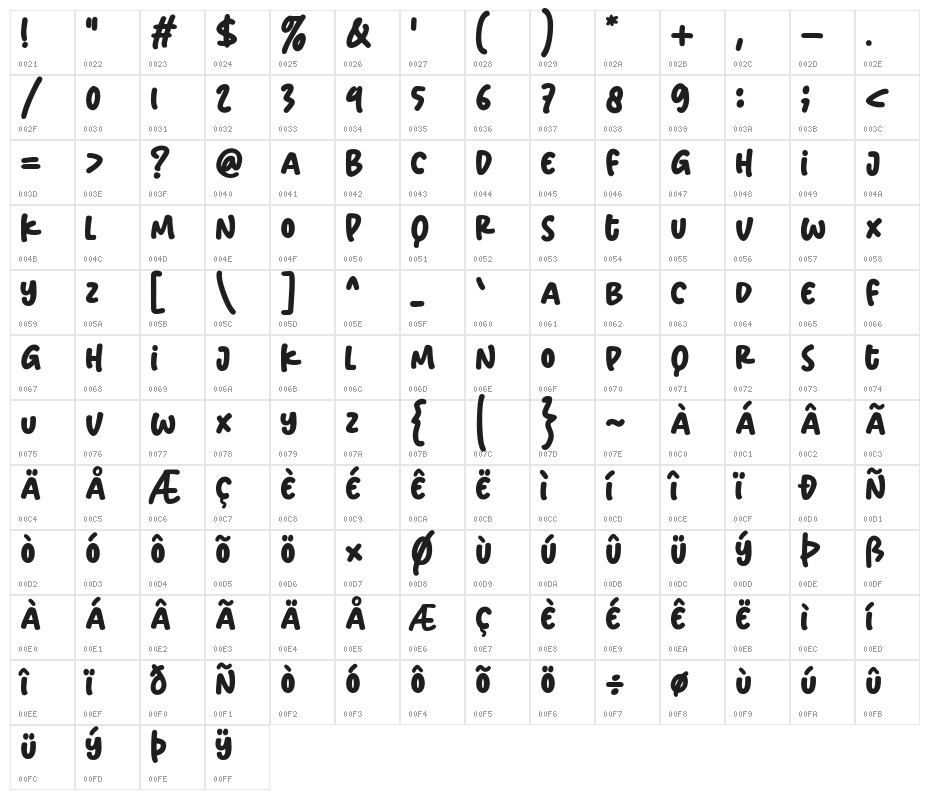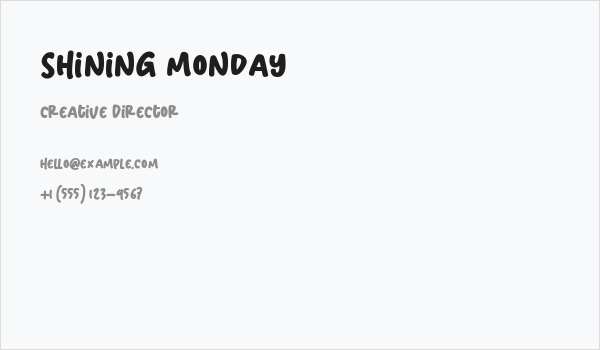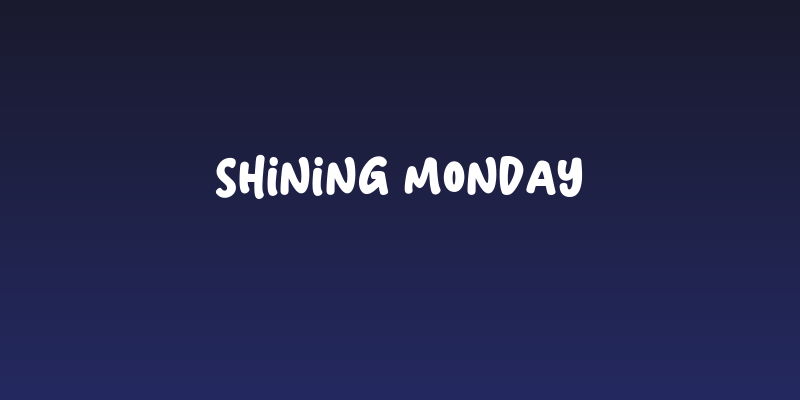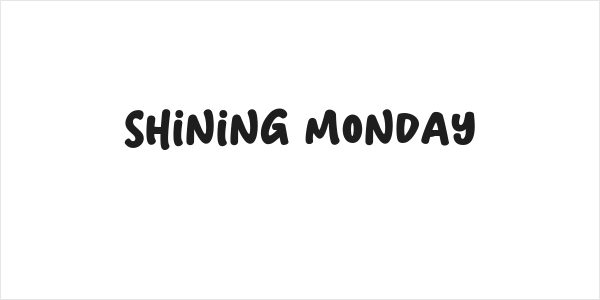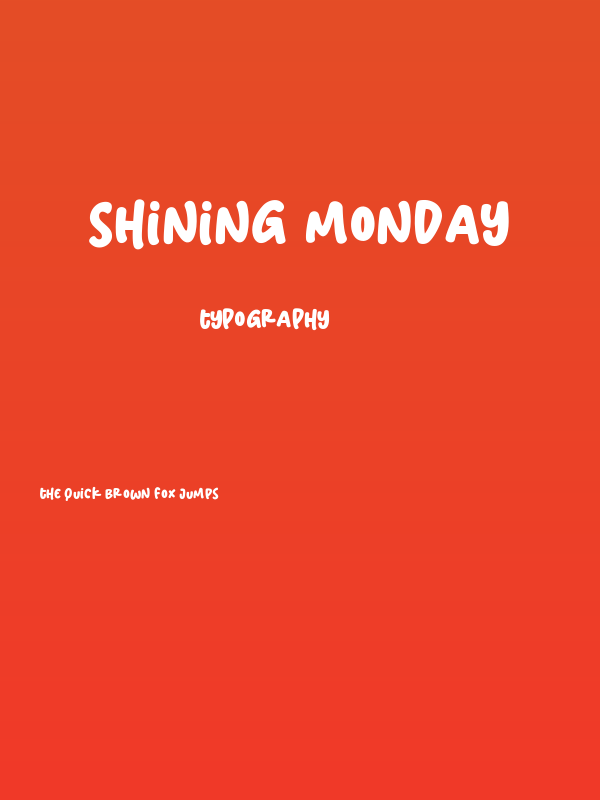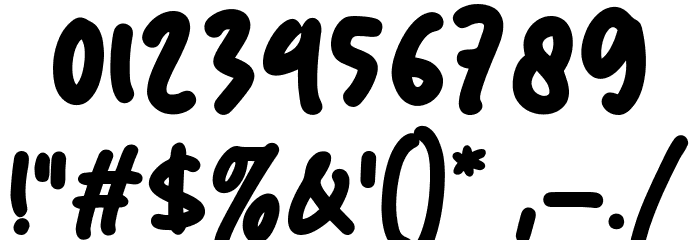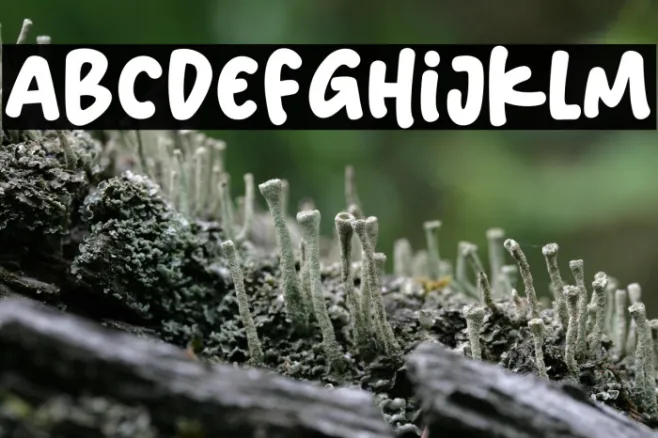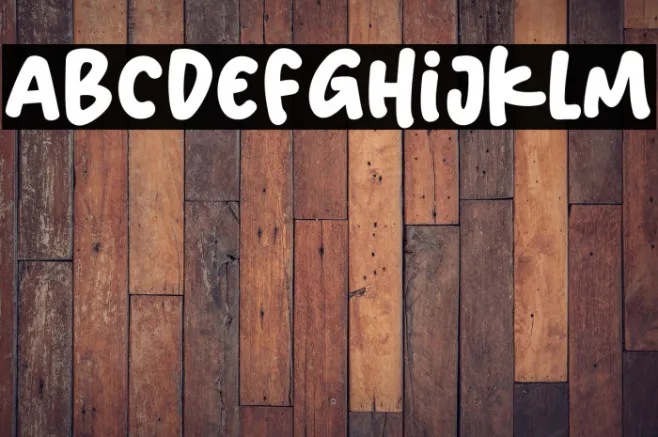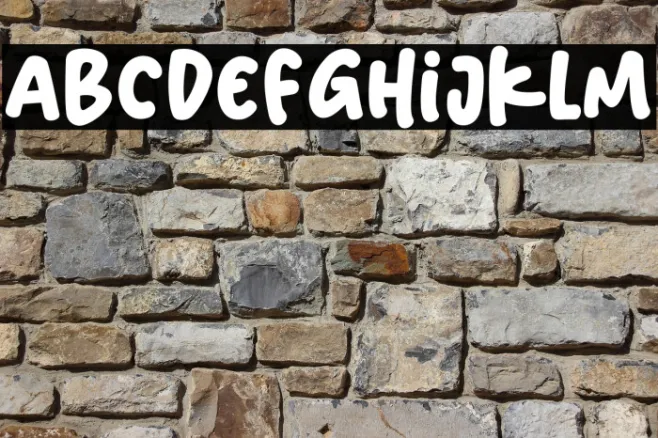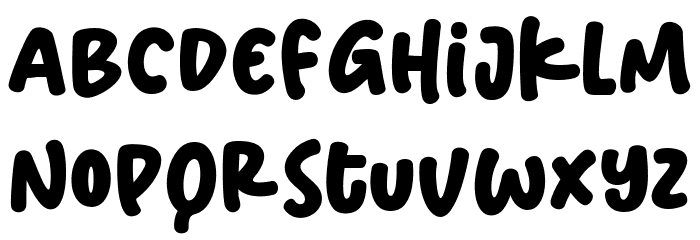
Shining Monday Font
Shining Monday Description
This playful and bold font exudes a lively and energetic vibe, characterized by its thick, rounded strokes and a handwritten style. The letters are slightly irregular, adding a touch of whimsy and personality. The uppercase and lowercase letters maintain a consistent style, with a smooth flow that makes it suitable for casual and informal designs. The numbers and special characters are equally bold and expressive, ensuring a cohesive look across all text elements. This font is perfect for projects that require a fun and approachable aesthetic.
| Proposed Projects | Ideal for children's books, playful branding, greeting cards, and social media graphics. |